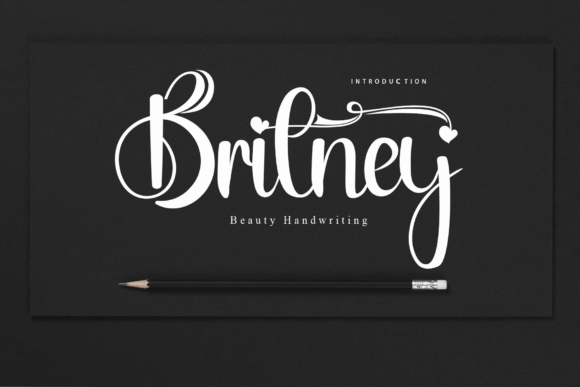
Styling Your Next Project with a Timeless Touch Have you ever been working on a design project and stumbled upon the perfect font to bring your vision to life? For me, that moment was when I discovered the Britney Font. Its elegant, cursive script instantly added a touch of sophistication to my design, transporting me…